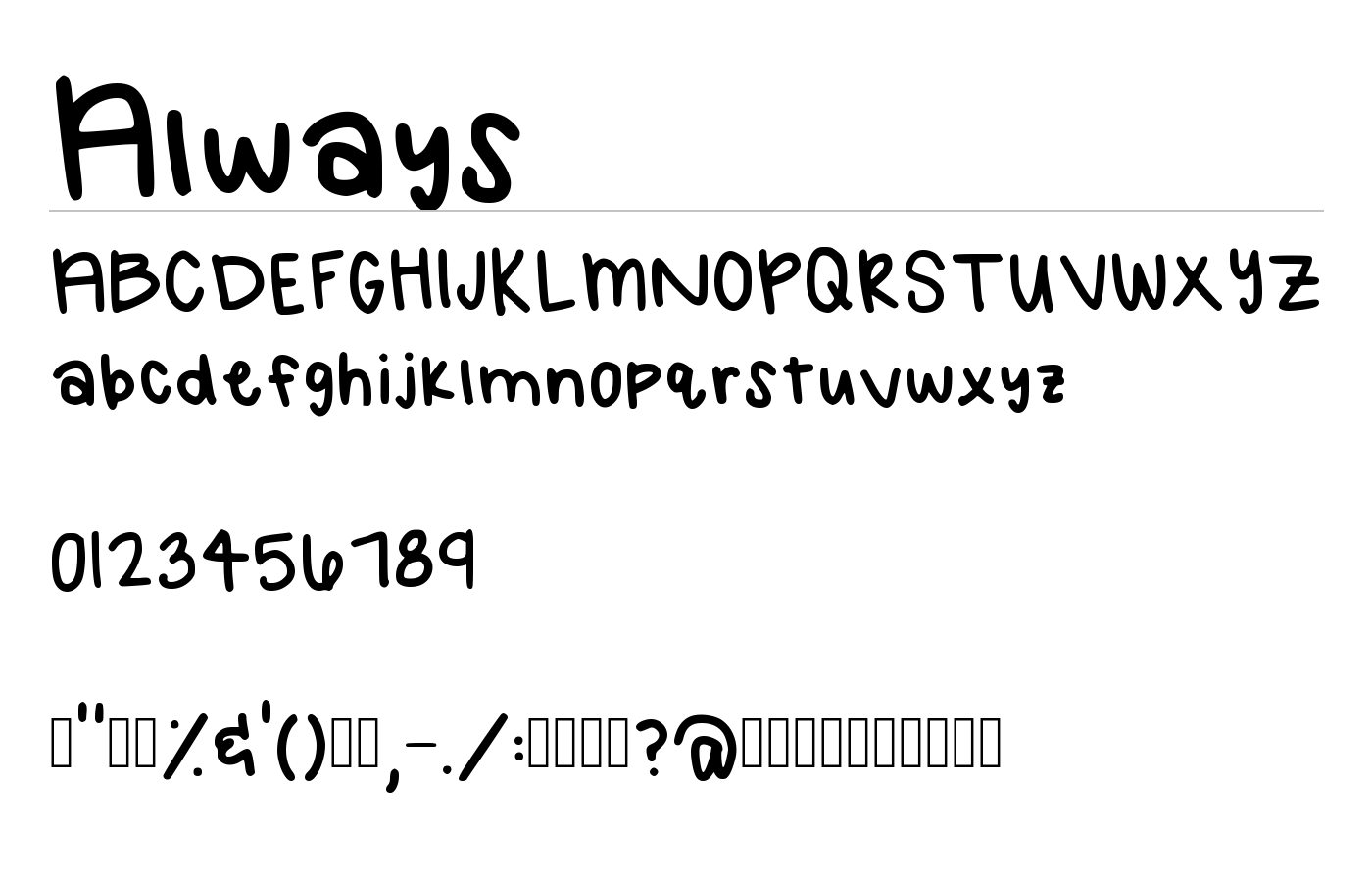
Always Font is a casual, playful sans serif typeface with a friendly, hand-drawn aesthetic. Its irregular strokes, rounded forms, and moderate x-height give it an approachable and informal feel, perfect for projects that seek a personal and youthful vibe. This font works well for children's books, informal branding, and creative digital content where warmth and simplicity are key.
Always Font